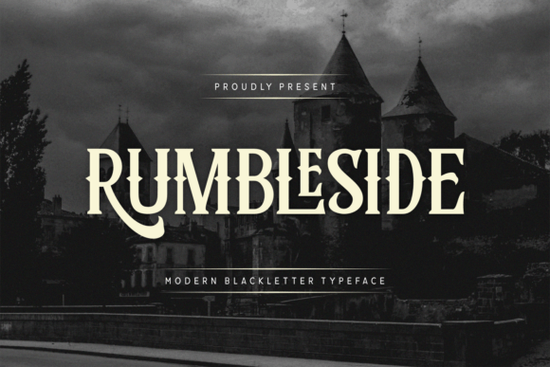
Looking for a blackletter font that feels both classic and fresh? Rumbleside is a bold blackletter typeface that blends old-world lettering with a modern edge. Its sharp strokes and graceful curves give any design a strong, confident look whether you're working on a logo, poster, or merchandise. If you need a typeface that commands attention without looking outdated, this one is worth a closer look.
What Kind of Style Does Rumbleside Bring?
Rumbleside draws from the Gothic blackletter tradition the kind of lettering you'd see in old manuscripts, tattoo flash sheets, and vintage brewery logos. But unlike some blackletter fonts that feel heavy and hard to read, Rumbleside keeps things clean. The edges are sharp but not jagged. The curves add a touch of elegance without being overly decorative.
This balance makes it flexible. You can use it for:
- Logo design especially for brands that want a bold, heritage-inspired identity
- Headlines and titles on posters, flyers, or social media graphics
- Merchandise t-shirts, hoodies, mugs, and stickers
- Wedding or event invitations when you want something with character
- Album covers or book covers for dark, dramatic, or vintage themes
Is Rumbleside Easy to Read at Different Sizes?
One common concern with blackletter fonts is legibility. Some look great large but fall apart at smaller sizes. Rumbleside handles this reasonably well because of its defined letterforms. At headline size, every character is distinct and easy to tell apart. At smaller sizes, it still holds up though like most blackletter typefaces, it's best suited for display use rather than body text.
If you're designing for print-on-demand products where text needs to be readable from a distance (like on a t-shirt chest print or a poster), Rumbleside performs well.
How Does Rumbleside Compare to Other Blackletter Fonts?
Creative Fabrica offers several blackletter-style fonts, and each one has its own personality. Here's a quick comparison to help you decide which fits your project:
- Highborne Has a more ornate, medieval feel. Great for fantasy-themed designs or book covers. You can find Highborne font if your project leans toward the dramatic and regal.
- Underdove A cleaner take on blackletter with smoother lines. Works well for modern branding that nods to tradition. Check out Underdove font for a slightly softer option.
- Stackwin Bolder and more condensed. Ideal when you need text to pack a punch in a tight space. Stackwin font is a solid pick for streetwear-style designs.
Rumbleside sits right in the middle classic enough to feel timeless, modern enough to feel relevant. If you want a versatile blackletter font that works across different project types, Rumbleside is a strong starting point.
Tip: Try setting Rumbleside in all caps for maximum impact on headlines and logos. Blackletter fonts often look their strongest in uppercase with generous letter spacing.